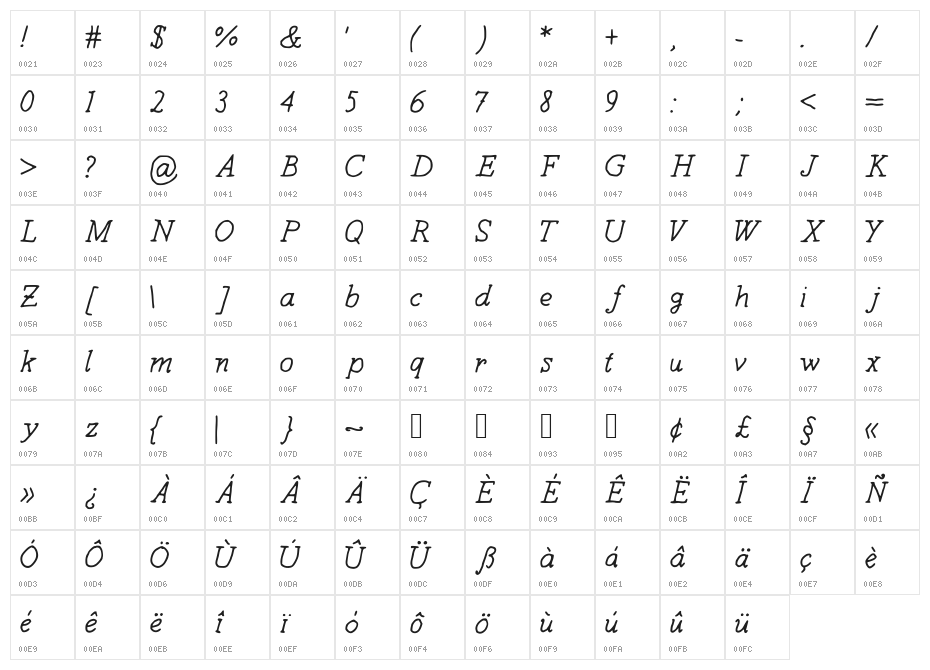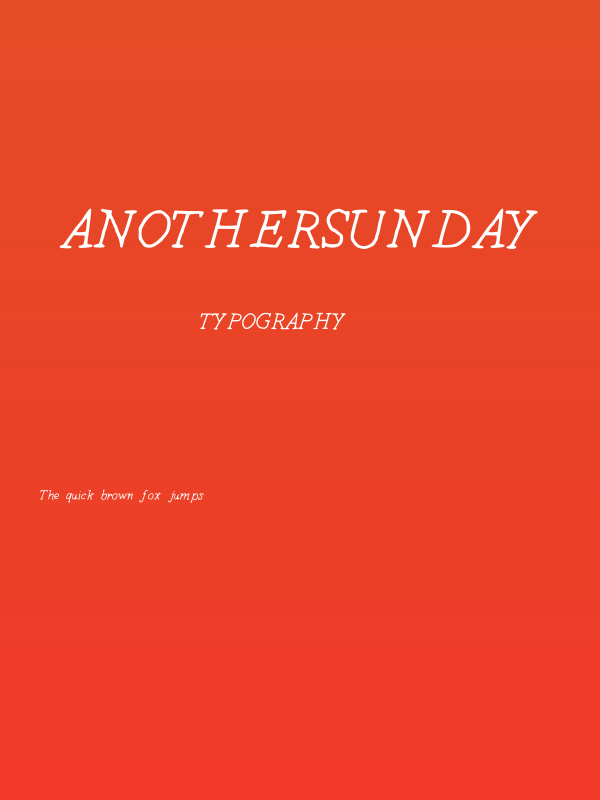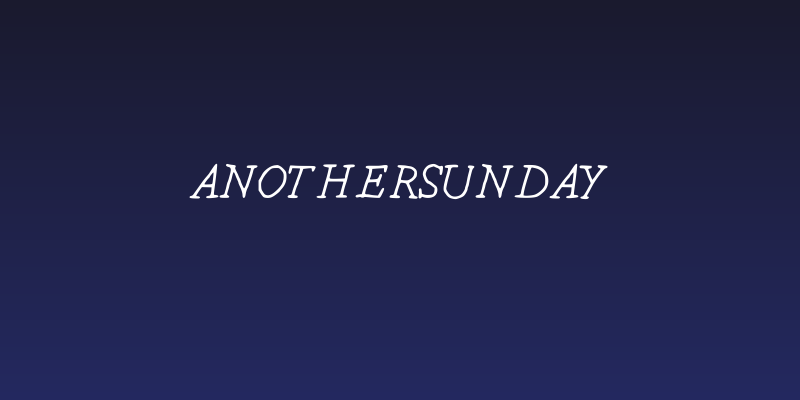
AnotherSunday Font
| Caso d'uso | Logos, Invitations, Personal Correspondence |
| Progetti proposti | Ideal for wedding invitations, personal letters, greeting cards, and branding projects that require a personal touch. |